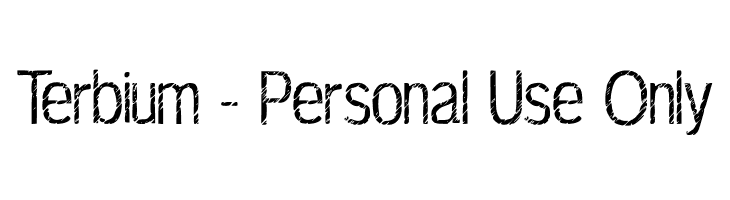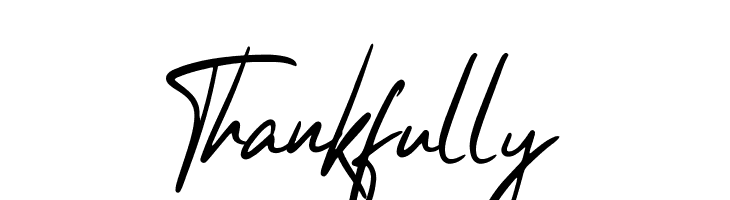
A distressed, textured font with a rugged, edgy appearance.
A graceful script font with elegant, flowing cursive strokes.
A modern, handwritten font with elegant, flowing cursive strokes.
A flowing, elegant script font with a natural handwriting style.
A bold, expressive script font with a hand-painted, modern calligraphy style.
A playful, bold handwritten font with a casual and friendly style.
A bold, playful script font with rounded strokes and smooth curves.
A modern, geometric font with clean lines and a futuristic feel.
A playful, hand-drawn font with a casual and whimsical style.
A dynamic, fluid script font with elegant, flowing lines and cursive letterforms.